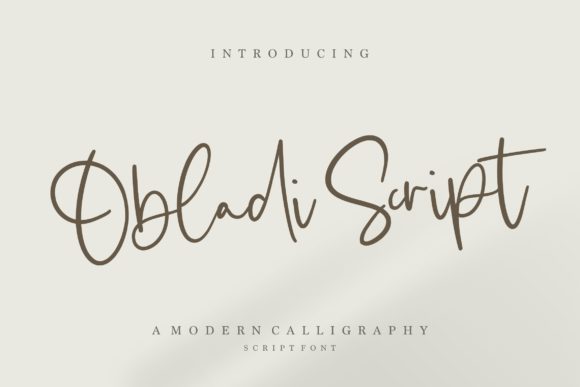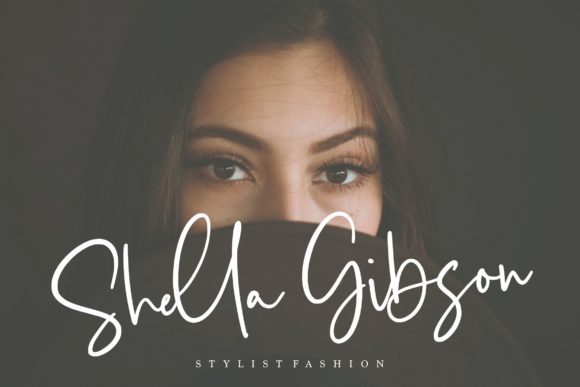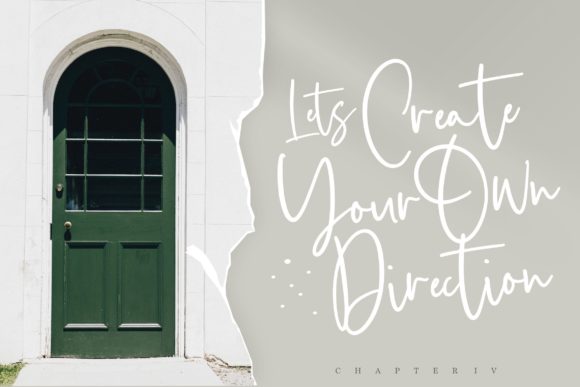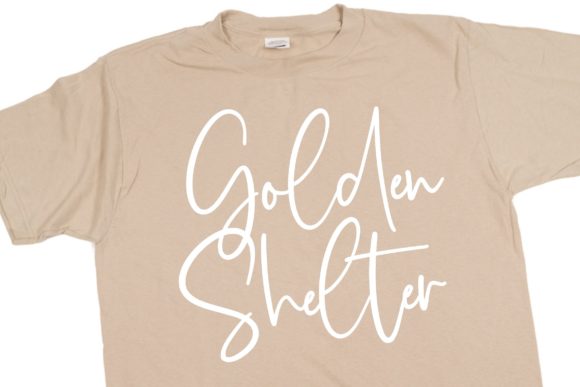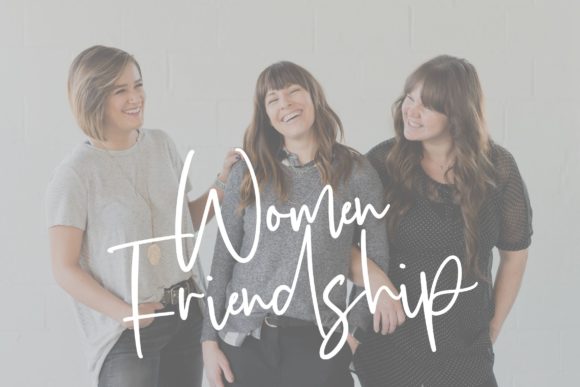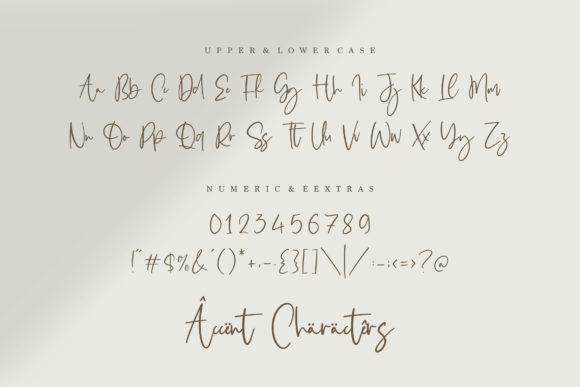
Obladi Script Font
Obladi Script is a lovely and timeless handwritten font. It is the best choice for creating eye catching logos, branding and quotes. Every letter has a unique and beautiful touch, which will make your design come alive!